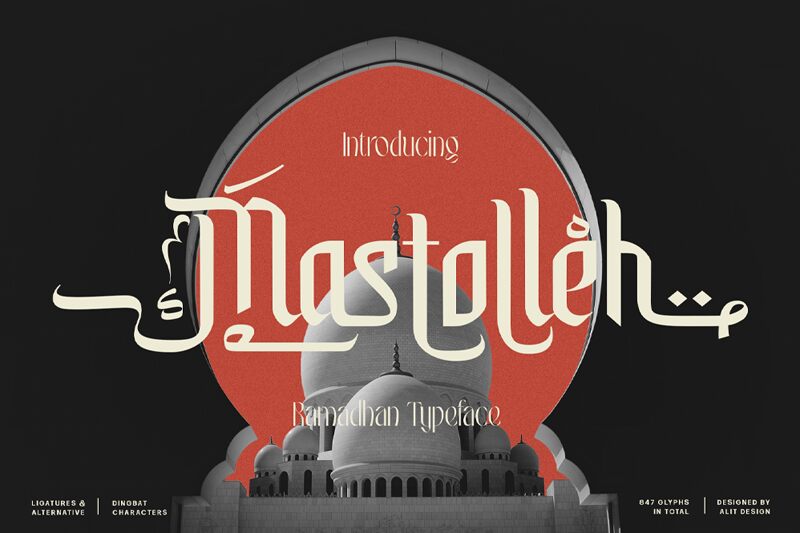
Mastolleh, a captivating Arabic font from Alit Design, exudes a bold and elegant presence. Its distinctive calligraphic strokes and condensed form create an arresting visual impact, making it a standout choice for a variety of design applications.
The font's refined aesthetic, with its graceful curves and sharp edges, lends itself exceptionally well to branding, editorial layouts, and decorative elements. Mastolleh's refined yet impactful character makes it a versatile tool, perfectly suited for headers, logotypes, and eye-catching accents that demand attention.
Whether embracing the font's power in a minimalist design or utilizing its intricate details to enhance a more ornate composition, Mastolleh offers designers a captivating option to elevate their work and leave a lasting impression on their audience.
Mastolleh